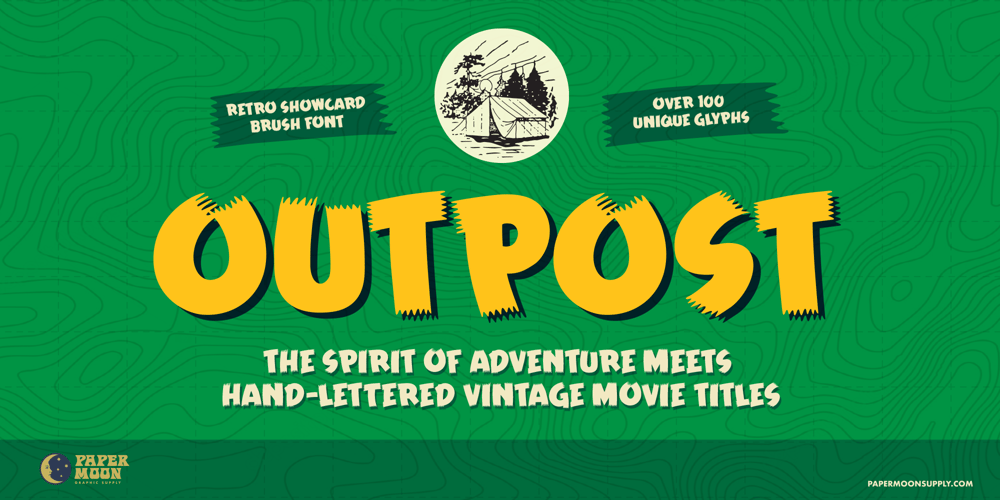
PM Outpost Font Family was designed by Scott Banks and published by Paper Moon Type & Graphic Supply. PM Outpost contains 1 styles and family package options. Part pirate, part BBQ, all fun. Our new adventure inspired retro showcard font.Outpost was inspired by retro hand-lettered type used on vintage movie tiles, midnight movie posters, and pulp adventure magazines. But don’t let that limit your creativity. Part pirate, part BBQ, all fun. Outpost is perfect for gaming titles, casual food packaging, and of course, Halloween projects.